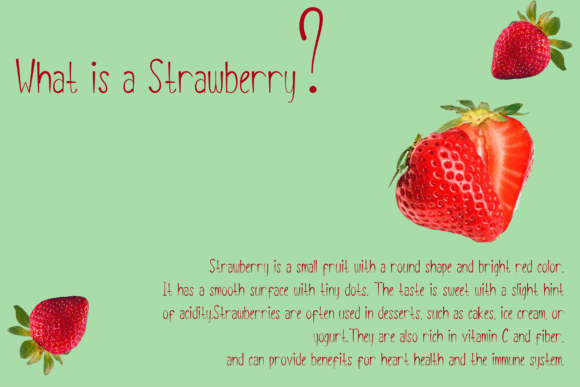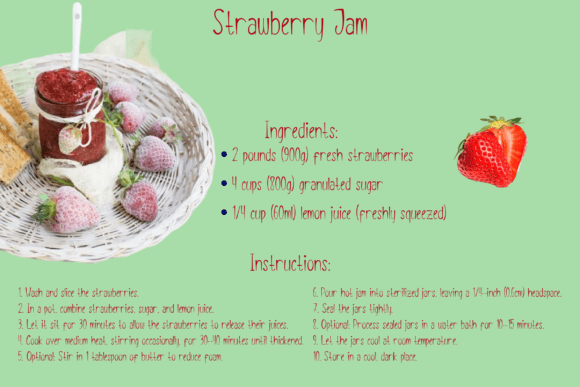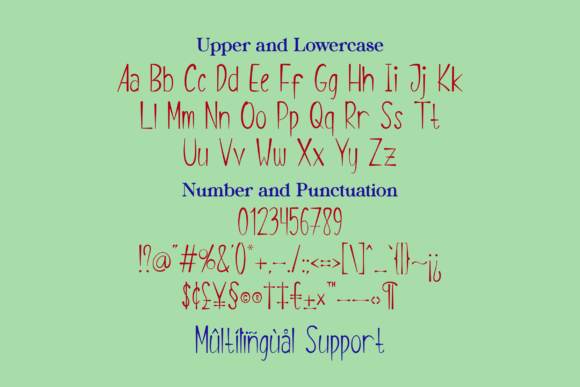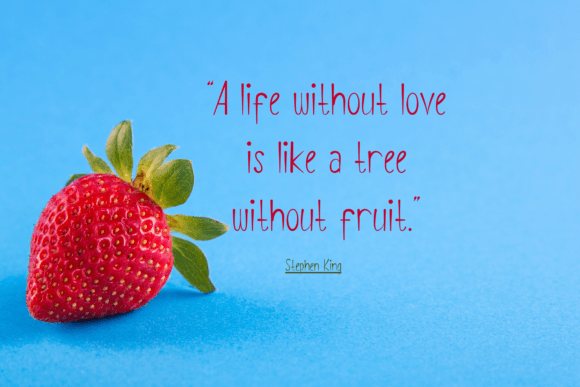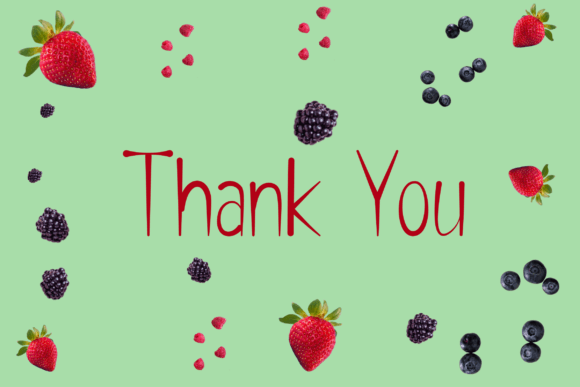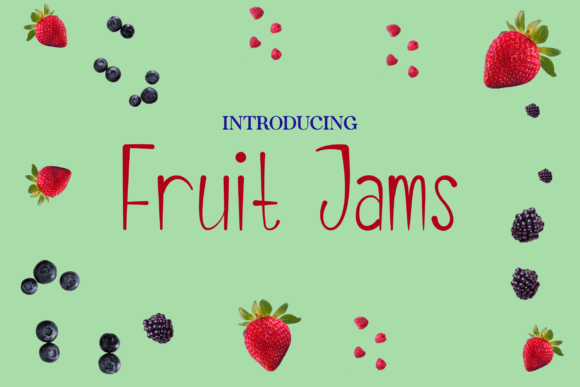
Fruit Jams Font: Add a Touch of Whimsy to Your Designs
Are you looking for a font that can add a playful and charming touch to your designs? Look no further than Fruit Jams, a delightful handwritten font that’s perfect for projects that require a friendly and approachable aesthetic. In this article, we’ll dive into the world of Fruit Jams and explore its unique features, uses, and benefits.
What is Fruit Jams Font?
Fruit Jams is a playful handwritten font with a charming and whimsical appeal. Its irregular strokes and unique characters add a touch of authenticity and joy to designs, making it perfect for projects that require a friendly and approachable aesthetic. This font is designed to evoke a sense of fun and playfulness, making it ideal for designs that need to stand out from the crowd.
Key Features of Fruit Jams Font
- Playful and Whimsical: Fruit Jams has a playful and whimsical appeal that’s perfect for designs that require a friendly and approachable aesthetic.
- Irregular Strokes: The font features irregular strokes that add a touch of authenticity and uniqueness to designs.
- Unique Characters: Fruit Jams has unique characters that are designed to evoke a sense of fun and playfulness.
- Handwritten: The font has a handwritten feel that’s perfect for designs that require a personal touch.
Uses of Fruit Jams Font
Fruit Jams is a versatile font that can be used in a variety of design projects, including:
- Branding: Use Fruit Jams to create a friendly and approachable brand identity that’s perfect for businesses that want to stand out from the crowd.
- Packaging: Add a touch of whimsy to your packaging designs with Fruit Jams, perfect for products that require a playful and eye-catching aesthetic.
- Signage: Use Fruit Jams to create eye-catching signage that’s perfect for businesses that want to attract attention.
- Digital Design: Fruit Jams is perfect for digital designs, including social media graphics, blog posts, and website headers.
Benefits of Using Fruit Jams Font
There are many benefits to using Fruit Jams in your designs, including:
- Unique Aesthetic: Fruit Jams has a unique aesthetic that’s perfect for designs that require a playful and whimsical touch.
- Easy to Read: Despite its playful nature, Fruit Jams is easy to read and understand, making it perfect for designs that require a clear and concise message.
- Versatile: Fruit Jams is a versatile font that can be used in a variety of design projects, from branding to packaging to digital design.
- Time-Saving: With Fruit Jams, you can create professional-looking designs in no time, saving you time and effort.
Tips for Using Fruit Jams Font
Here are some tips for using Fruit Jams in your designs:
- Use it Sparingly: While Fruit Jams is a beautiful font, it’s best to use it sparingly to avoid overwhelming your design.
- Pair it with Other Fonts: Fruit Jams pairs well with other fonts, so don’t be afraid to experiment with different combinations.
- Experiment with Colors: Fruit Jams looks great in a variety of colors, so don’t be afraid to experiment with different color schemes.
Fruit Jams is a playful handwritten font that’s perfect for designs that require a friendly and approachable aesthetic. With its irregular strokes and unique characters, Fruit Jams adds a touch of authenticity and joy to designs. Whether you’re a designer or crafter, Fruit Jams is a great addition to your font collection. So why not give it a try and see how it can elevate your designs?